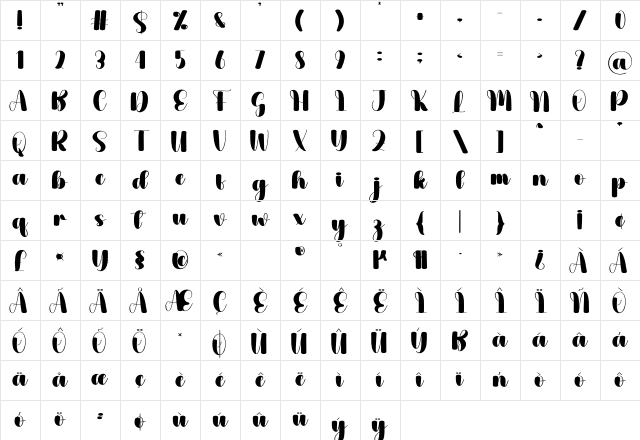
Fountain Regular
Design Context for Fountain
Fountain is a composed and adaptable typeface that performs quietly and consistently across a wide range of design contexts.